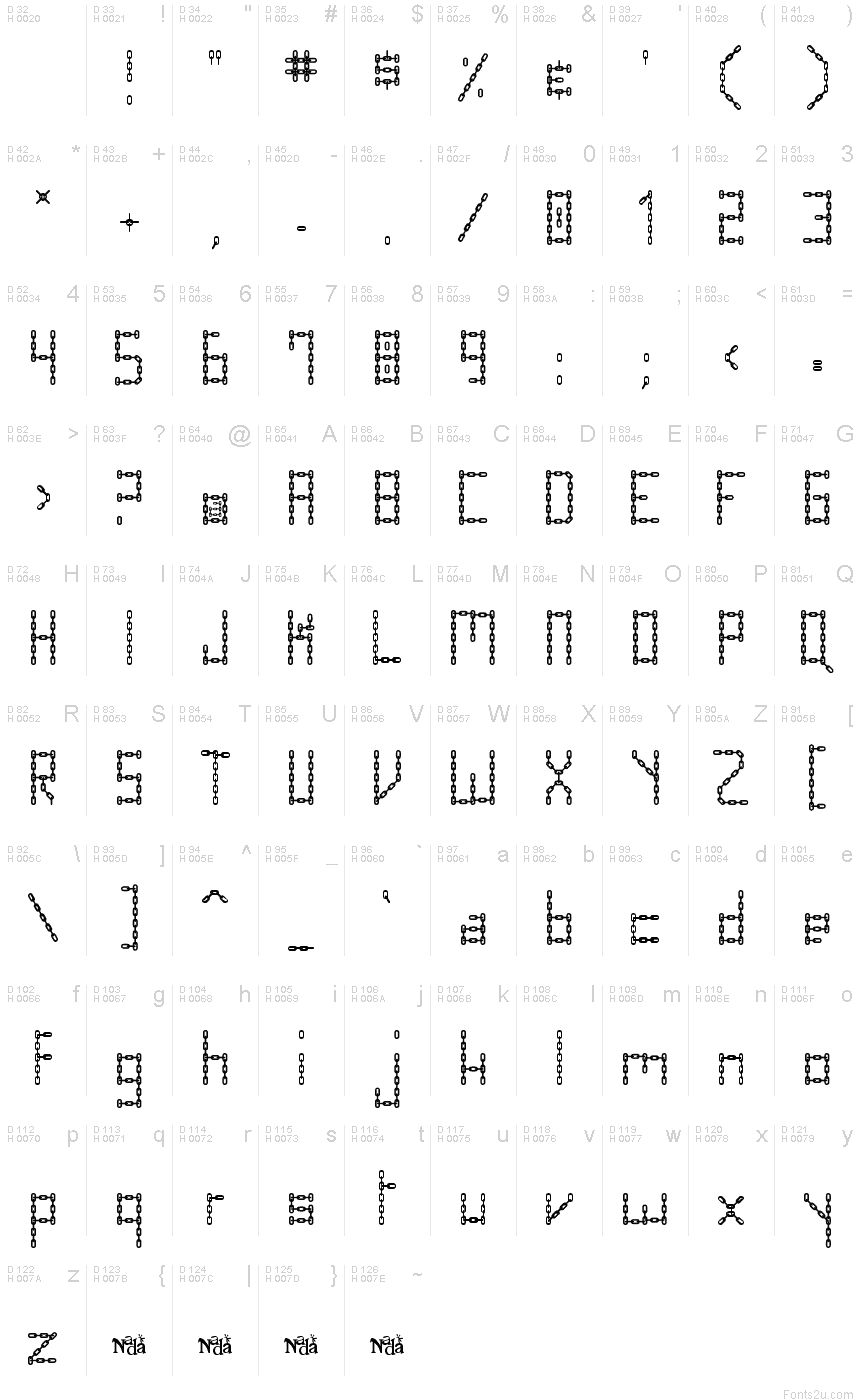
Chain Letter
Chain Letter font by R. Gast is a free decorative display typeface that turns every word into a run of interlocked metal links. Each character is drawn as a neat rectangle of chain, with crisp outlines and tiny gaps that make the letters feel tactile, like something you could drag across a warehouse floor. The rhythm of repeating links keeps even long words readable while still looking gritty and mechanical.
Using Chain Letter, your text instantly picks up an industrial, locked-down mood that works beautifully for escape room posters, game titles, biker-themed graphics, hardware shop branding, horror flyers, and metal or punk album art. This free font shines at large sizes where the individual links can really show, and it pairs well with a clean geometric sans for body copy to keep everything legible and grounded.